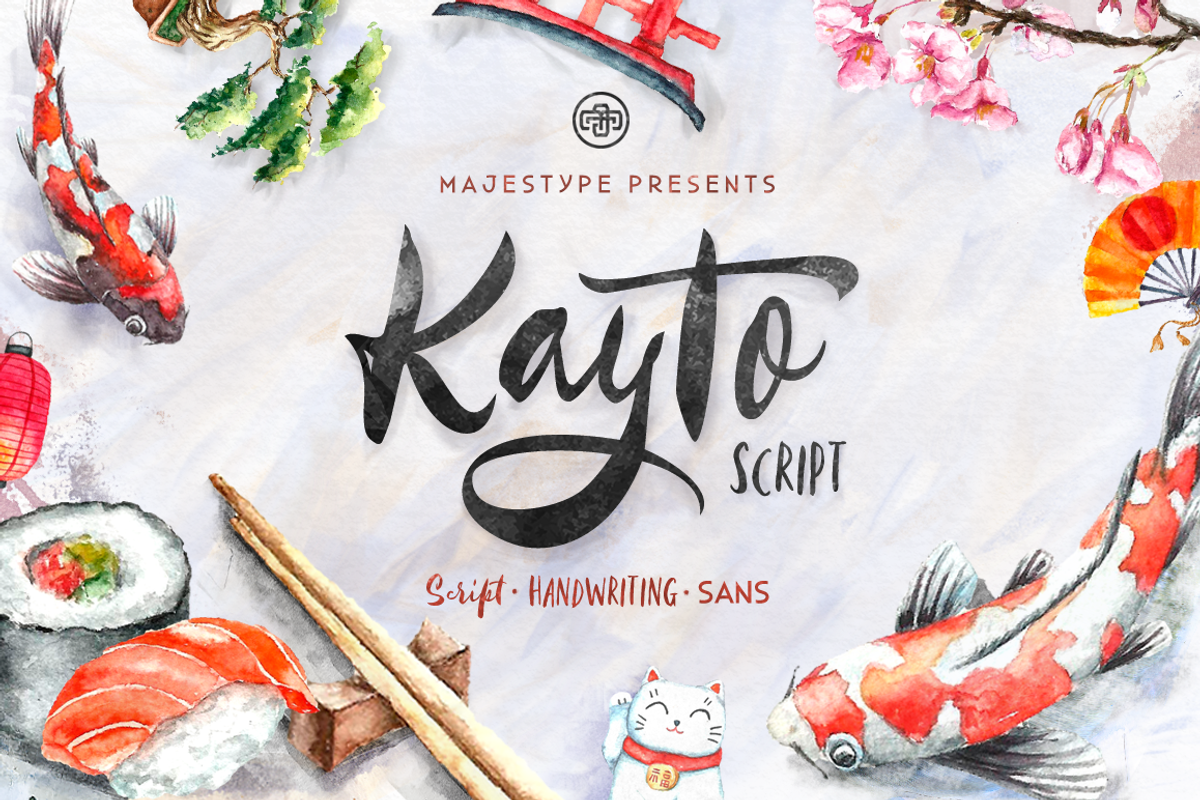
You must purchase this font for commercial use. However, you can download Kayto - Calligraphy Font Bundle Free Download for testing purposes. Kayto is an elegant and sophisticated calligraphy font bundle, offering a collection of refined script fonts designed to add a touch of luxury and grace to your designs. Perfect for wedding invitations, branding, greeting cards, logos, and social media content, this bundle provides versatile options for various design projects that require beautiful, hand-lettered fonts.
The Kayto bundle includes different calligraphy styles, each with smooth strokes and intricate letterforms, allowing you to choose the perfect font for your specific project. Whether you're designing for a high-end brand, creating romantic event stationery, or crafting an elegant logo, Kayto will elevate your typography with its refined and artistic feel.